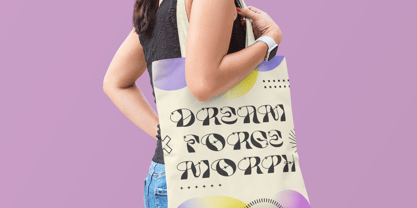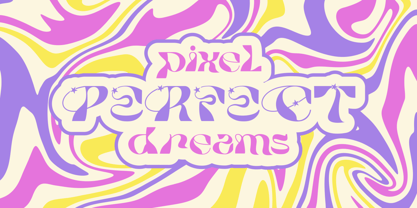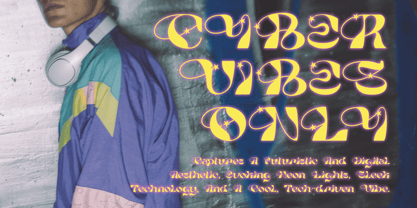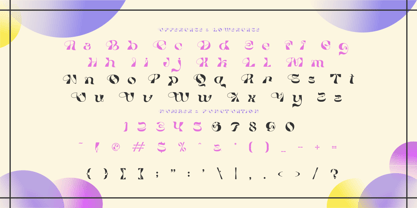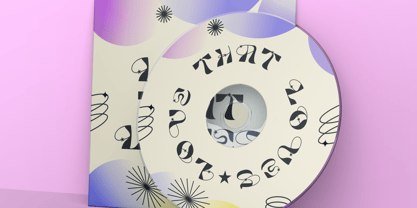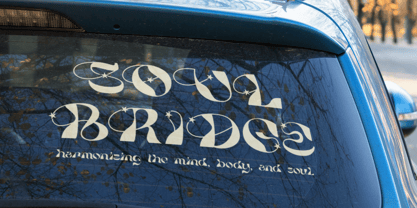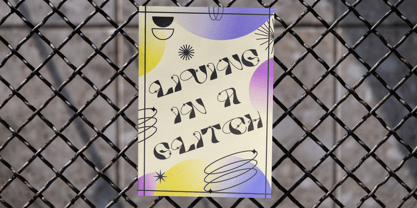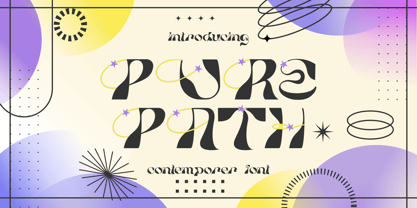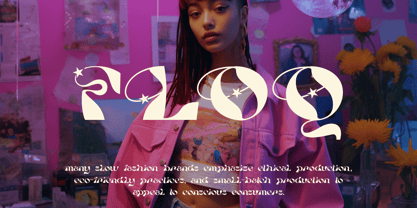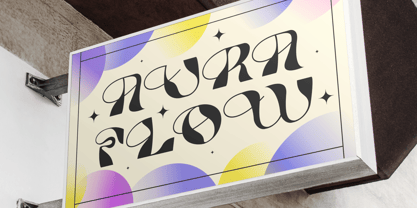
Pure Path
The Pure Path Font Family was designed by Yesie Erma Yunita and published by Shanaf. Pure Path contains 2 styles and family package options. More about this family
Pure Path Contemporer Font is a bold and experimental display typeface designed to stand out with futuristic flair. Each character carries a unique rhythm, blending sharp geometric cuts with flowing curves. Decorative star swashes add a playful sparkle, making it ideal for modern projects that need a fresh and artistic vibe. The font has a versatile layout, where uppercase and lowercase styles mix seamlessly to create dynamic typography. Its eccentric look is perfect for posters, logos, fashion branding, music covers, or digital projects.
Designed with creativity in mind, Pure Path Contemporer Font captures a mix of retro-futuristic and digital energy. Its striking forms work beautifully in vibrant color palettes, gradients, or neon-inspired layouts. From experimental album art to trendy social media graphics, this font delivers an instant statement. It is a great choice for anyone seeking a typeface that feels modern, artistic, and distinctive while keeping legibility intact.